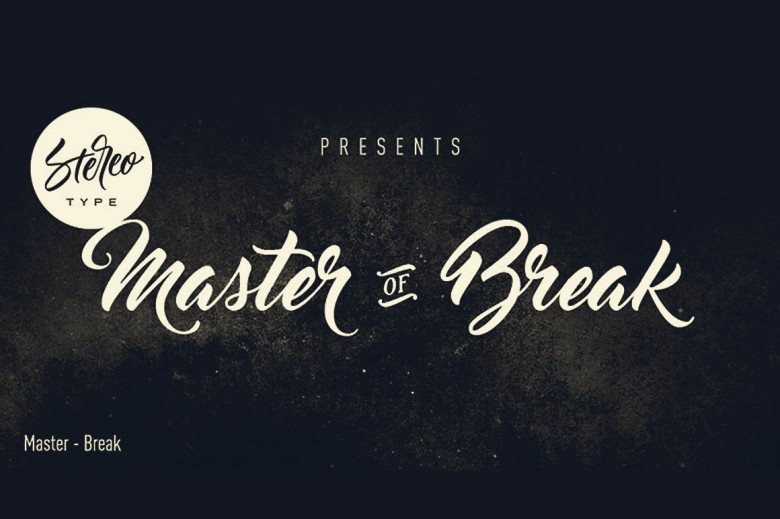
Master of Break Font
And here is the new one to complete this tremendous set of fonts – Master of Break Font! Master of Break made and contributed by StereoType. Master of Break is an aesthetically pleasing new script font which will provide a perfect fit to your designs. The commercial version offers a set of full alternate glyphs and 13 13 ligatures and swashes to build your own style ! You will also be able to edit PDF files which contain the font among the choices.
Master of Break Script Font